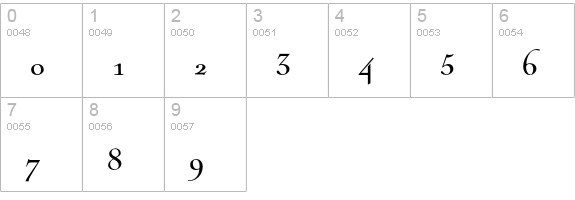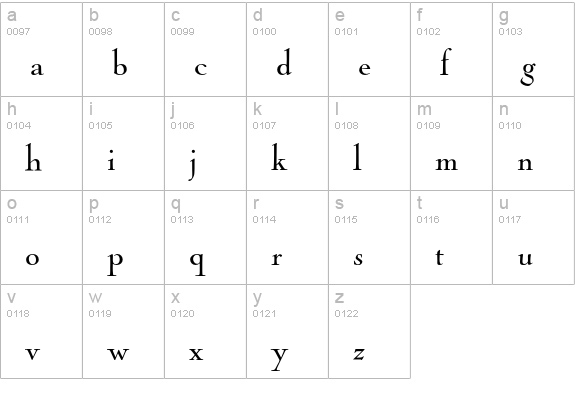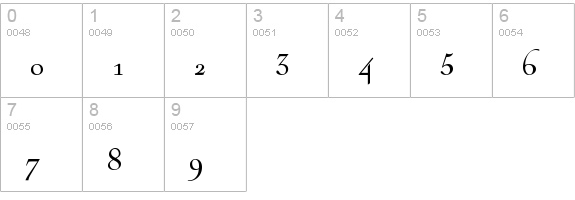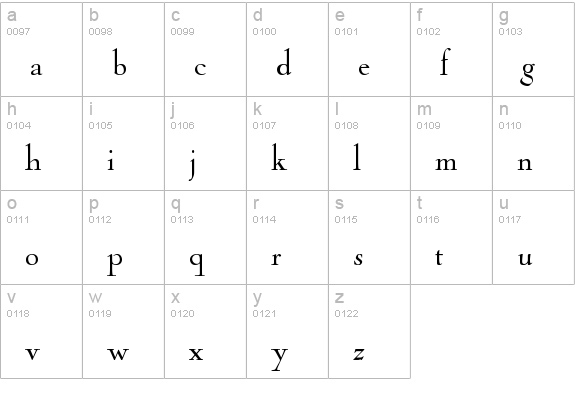
NicolasCochinEF-Regular Font Details
NicolasCochinEF-Regular is the standard, neutral variant in the NicolasCochinEF typeface family \xE2\x80\x94 well suited to general body text, paragraphs, and standard typographic work.
NicolasCochinEF-Regular font is a versatile and elegant typeface that exudes sophistication and style. With its clean lines and classic design, this font is perfect for a wide range of design projects, from branding to editorial layouts. The timeless appeal of NicolasCochinEF-Regular font makes it a popular choice among designers and creatives looking for a reliable and professional typeface. What's even better is that NicolasCochinEF-Regular font is available for free download at FontsMarket.com. This means you can easily access this high-quality font without any cost, making it a valuable addition to your font library. Whether you're working on a print project or a digital design, NicolasCochinEF-Regular font is sure to elevate your work and give it a touch of sophistication and elegance. Download it today and see the difference this beautiful font can make in your designs.